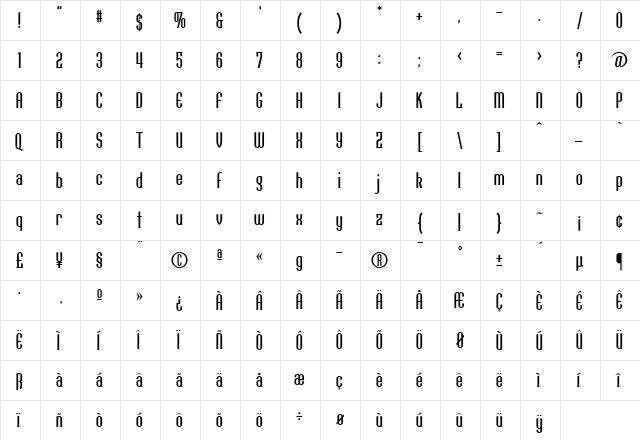
Conques Demi
Design Context for Conques Typeface
Conques takes a measured approach to typography — its balanced proportions and neutral character make it a reliable workhorse for both digital and print work.